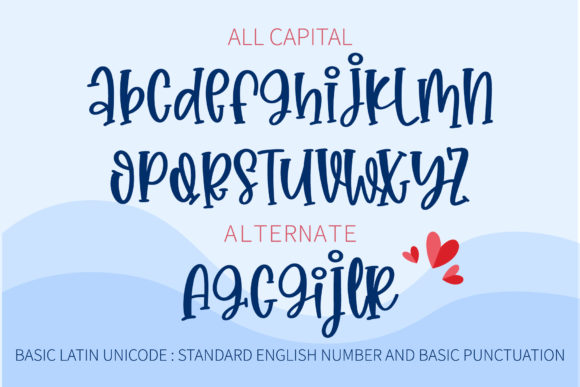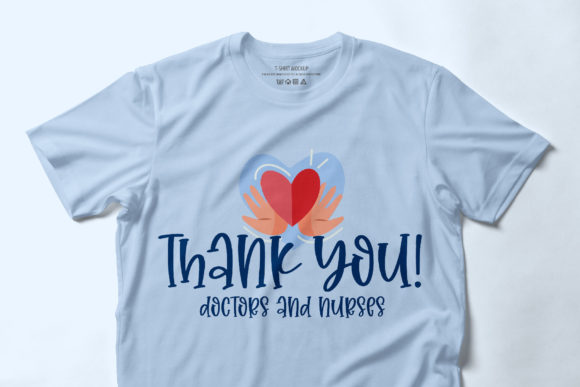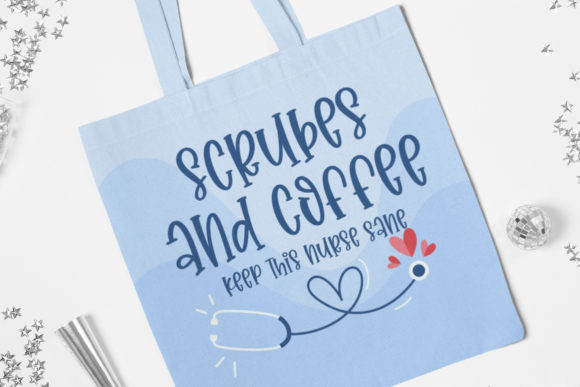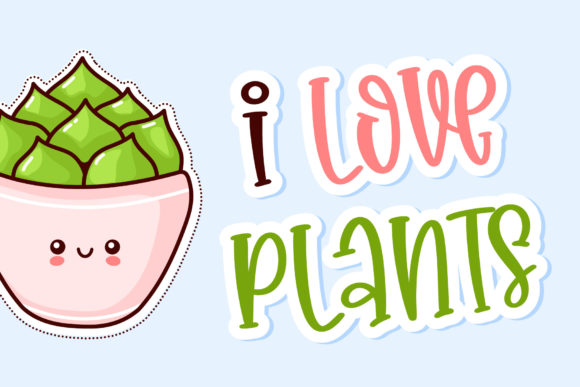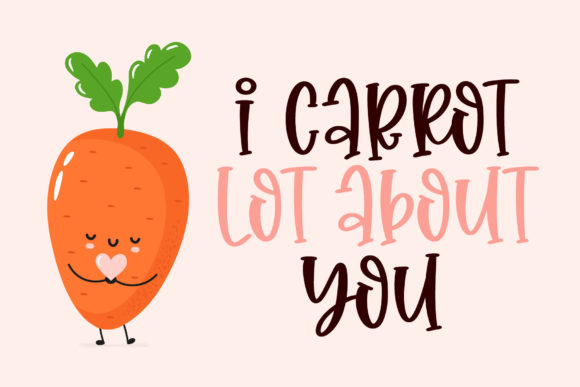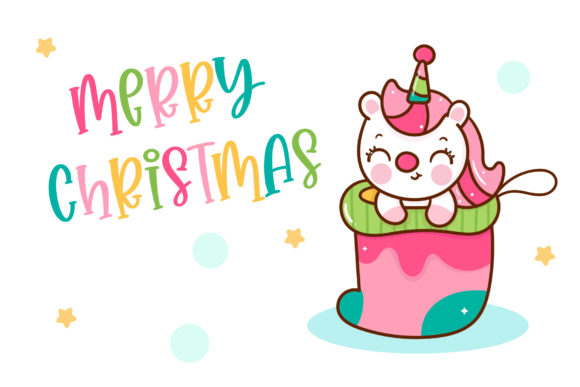
Introduction to Kristofer Font
Have you ever found yourself stuck in a creative rut, staring at a blank page or screen, desperately searching for that one perfect element to bring your design to life? I’m sure we’ve all been there at some point. But what if I told you that there’s a secret to unlocking your full design potential? Enter the enchanting Kristofer Font, a quirky and informal handwritten font that’s sure to add a touch of magic to your next creative project.
With its natural and unique style, the Kristofer Font is a versatile design resource that’s perfect for a wide range of applications, from social media graphics to posters and beyond. And the best part? It’s completely free to download and use, making it an accessible and valuable tool for designers of all levels.
Key Features of Kristofer Font
- High-quality, unique design suitable for creative projects requiring a distinctive touch.
- Designed to be scalable, allowing users to resize the font without compromising its quality.
- Perfect for use in digital and print projects, including logos, graphics, and typography-based designs.
Honest Review: Kristofer Font
I recently stumbled upon the Kristofer Font, and I must say, it’s been a game-changer for my creative projects. The moment I downloaded it, I knew I had found something special. The font is sleek, modern, and perfect for any design resource.
One of the standout features of the Kristofer Font is its high quality. The font is crisp and clean, making it perfect for use on transparent backgrounds or in designs where clarity is key. ✨ I’ve used it for everything from logos to brochures, and it’s always delivered.
Here are some of the key benefits I’ve found with the Kristofer Font:
- High quality and crisp lines
- Perfect for transparent backgrounds or designs where clarity is key
- Great for creative projects, logos, and brochures
While the Kristofer Font is an excellent addition to any designer’s toolkit, there are a few limitations to be aware of: ⚠️ it’s not suitable for all types of designs, and it may not be as versatile as some other fonts.
Overall, I’m thoroughly impressed with the Kristofer Font. It’s a high-quality design resource that’s perfect for a wide range of creative projects. If you’re looking for a new font to add to your collection, I highly recommend giving it a try.
Kristofer Font is ideal for creating high-quality designs for a variety of creative projects, such as logos, business cards, and brochures. Its transparent background makes it perfect for overlaying on images or videos.
For the best results, use Kristofer Font in conjunction with a high-quality design resource, such as a professional image or video. You can also experiment with different font sizes, colors, and styles to create a unique design.